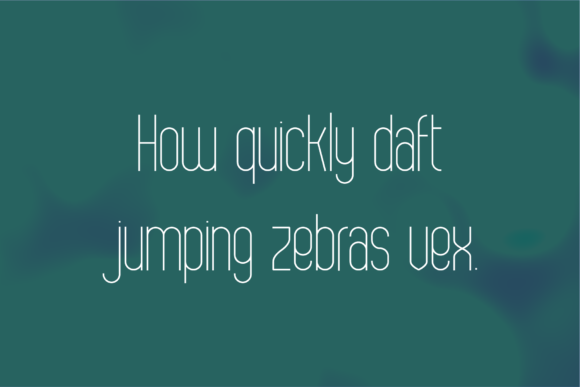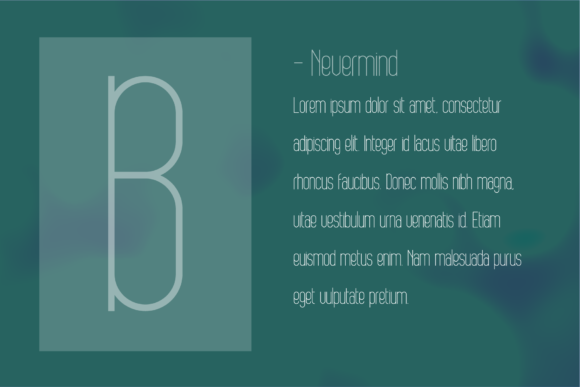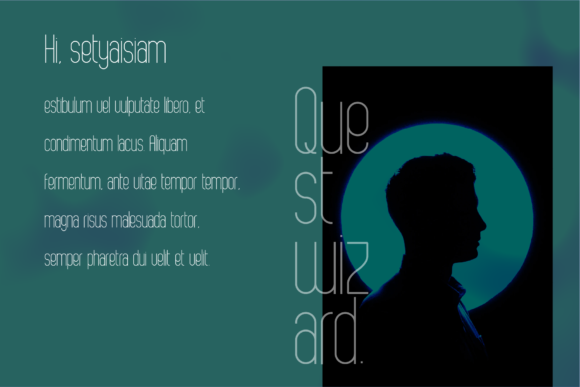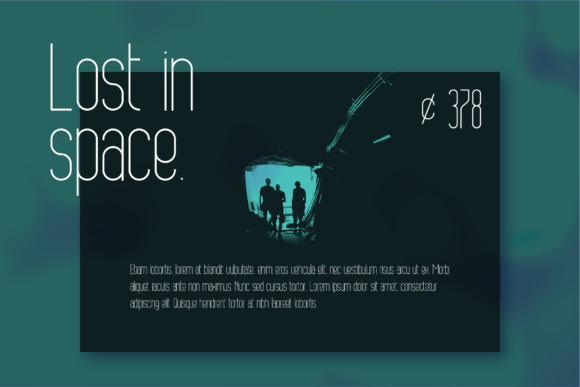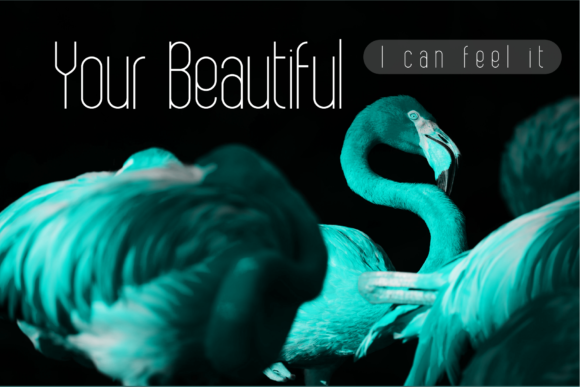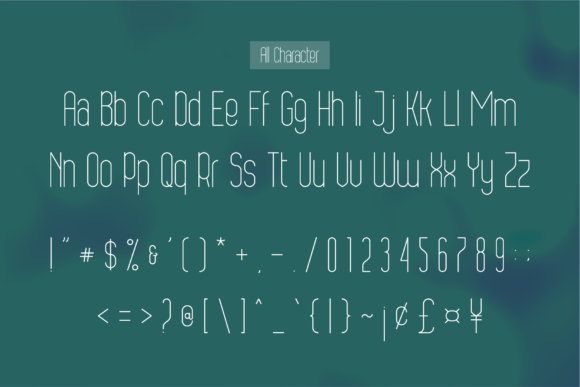
Discover the Timeless Elegance of the Bobogo Font
Have you ever stared at a blank canvas, waiting for inspiration to strike? Maybe it’s a blank page, a sketchbook, or even a coding project. Whatever the case, it’s that moment when creativity is about to unfold, and the right tool can make all the difference. For designers, the choice of font can be just as crucial as the idea itself.
Enter the Bobogo Font, a minimalist and sleek sans serif font that’s poised to revolutionize your creative endeavors. Whether you’re crafting a stunning logo, designing a website, or creating a book cover, this versatile font is sure to elevate your work. With its thin, delicate lines, the Bobogo Font brings a touch of sophistication to any project, making it an invaluable addition to your font library.
Key Features of Bobogo Font
- Font Family: Bobogo comes in multiple font families, including serif, sans-serif, and script styles.
- Character Set: Supports a wide range of languages, including Latin, Cyrillic, Greek, and many others, with over 1000 glyphs.
- Unique Characteristics: Features a distinctive, hand-drawn feel with subtle imperfections, giving it a unique and artistic touch.
Designer Review: Bobogo Font
As a designer, I was excited to dive into the Bobogo Font and see what it had to offer. Overall, I’d say it’s a solid addition to any designer’s toolkit, but it’s not without its limitations.
- Unique, Modern Design: The Bobogo Font has a distinctive, modern look that’s sure to turn heads. Its sleek lines and rounded edges make it perfect for designing modern websites, apps, and other digital products.
- High-Quality Rendering: The font renders beautifully across a range of devices and platforms, making it a great choice for designers who need a font that looks great everywhere.
- Support for Multiple Languages: The Bobogo Font supports a wide range of languages, making it a great choice for designers working on global projects.
- Limited Character Set: While the Bobogo Font supports multiple languages, its character set is not as comprehensive as some other fonts on the market. This may be a limitation for designers who need to support very specific languages or characters.
- No Customization Options: The Bobogo Font doesn’t offer a lot of customization options, which may be a limitation for designers who need to fine-tune their font’s appearance.
Overall, I’d say the Bobogo Font is a solid choice for designers who need a modern, high-quality font for their projects. While it has some limitations, its unique design and high-quality rendering make it a great addition to any designer’s toolkit.
Getting the Most Out of Bobogo Font
For the best results, use Bobogo Font for headings, titles, or short text passages. This font is particularly suitable for creating unique and creative titles or headings. Experiment with different font sizes and colors to enhance the visual impact of your text.
Bobogo Font is ideal for various creative projects, including:
– Graphic design
– Branding
– Print materials
– Digital presentations
Alternatives to Bobogo Font
Great Vibes is a beautiful, elegant script font perfect for creating a luxurious and sophisticated feel. It’s ideal for use in high-end branding, packaging, and advertising materials.
Compared to Bobogo Font, Great Vibes has a more refined and polished look, making it suitable for more formal and professional applications.
Carolyna Pro is a modern script font with a touch of elegance and sophistication. It’s perfect for use in fashion branding, packaging, and advertising materials that require a high level of style and sophistication.
Q: What is the recommended font size for optimal readability with Bobogo Font?
For optimal readability, we recommend using Bobogo Font at a minimum size of 12 points. However, the ideal font size may vary depending on the specific application, intended audience, and design requirements.